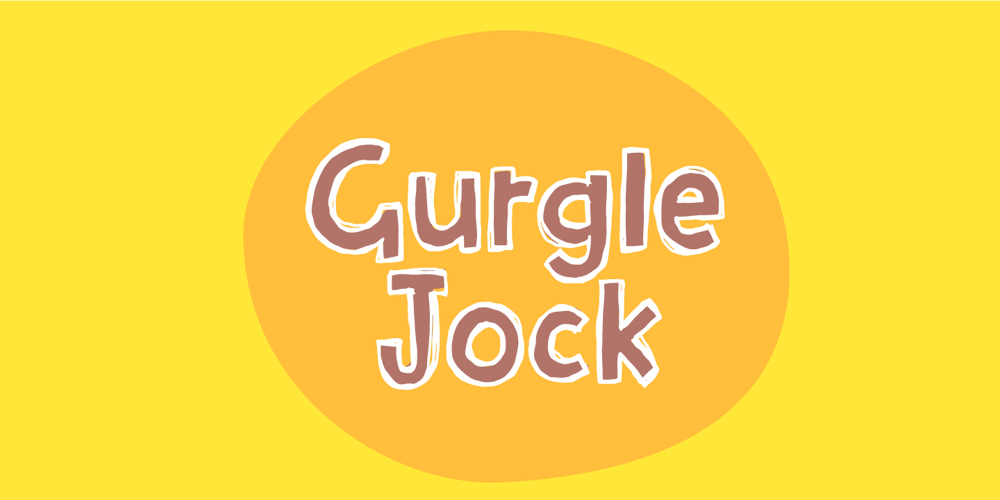
Gurgle Jock Font Family was designed by Jakob Fischer and published by Bogstav. Gurgle Jock contains 2 styles and family package options. urgle Jock is actually two fonts in one: The Regular version is a classic handmade sans and the Outline version is…well, an outlined version of the Regular – however, I made it a bit off-grid and hasty scribbled looking. The two versions works well as they are and even greater together!